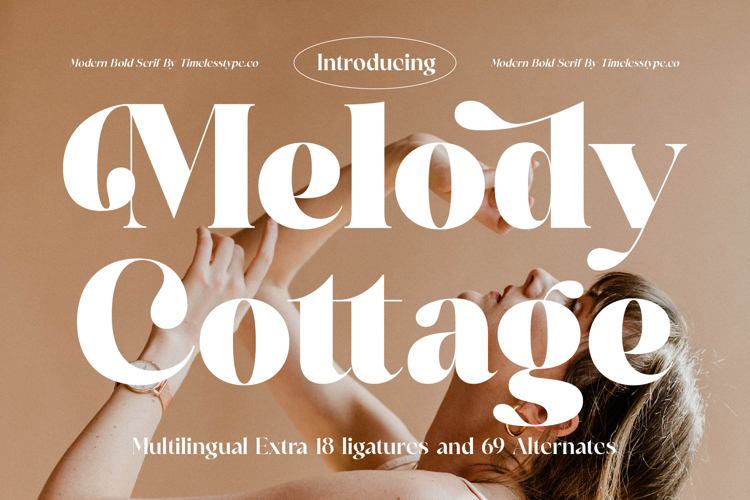
Melody Cottage - Modern Bold Serif
Discover the undeniable elegance of Font Melody Cottage - Modern Bold Serif Display, a typeface masterfully blending timeless sophistication with a contemporary edge. Its distinctive high-contrast strokes and bold serif terminals create an immediate visual impact, exuding refined luxury. This modern display serif is crafted to captivate, ensuring your designs stand out with unparalleled grace.
Unleash extraordinary design potential with Font Melody Cottage - Modern Bold Serif Display. Beyond its stunning aesthetic, this font boasts a wealth of OpenType features, including 18 ligatures and 69 alternates. These sophisticated stylistic sets provide unmatched versatility, allowing designers to effortlessly craft unique and bespoke typographic compositions that resonate with individuality and elegance.
Expand your reach globally with Font Melody Cottage - Modern Bold Serif Display. With its extensive multilingual support, Font Melody Cottage - Modern Bold Serif Display adapts seamlessly across global markets, making it incredibly versatile for international projects. This comprehensive language coverage ensures your message maintains its sophisticated appeal and professional integrity no matter the audience or locale.
Elevate your brand identity with the exceptional value of Font Melody Cottage - Modern Bold Serif Display. It is perfect for high-end luxury branding, sophisticated editorial design, premium packaging, exquisite invitations, and captivating magazine headlines. Invest in this timeless display serif to imbue your creations with a distinctive flair that communicates quality, innovation, and an unmistakable sense of style.